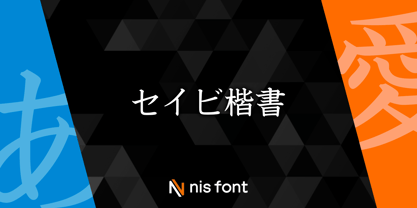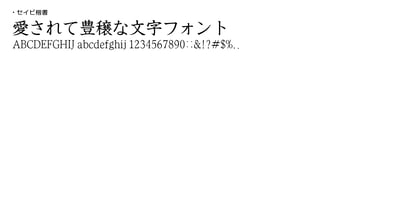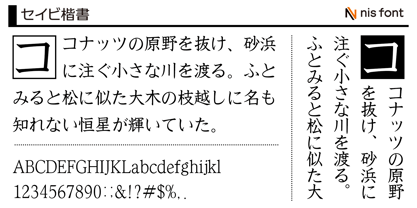
OT-NIS_BK
The OT-NIS_BK Font Family was designed by and published by NIS Fonts. OT-NIS_BK contains 1 styles. More about this family
This typeface features a design carefully crafted to align neatly in both vertical and horizontal text layouts. The slightly larger kana enhances visibility, making it easy to read even on displays. Note: This typeface supports the JIS2004 character set.